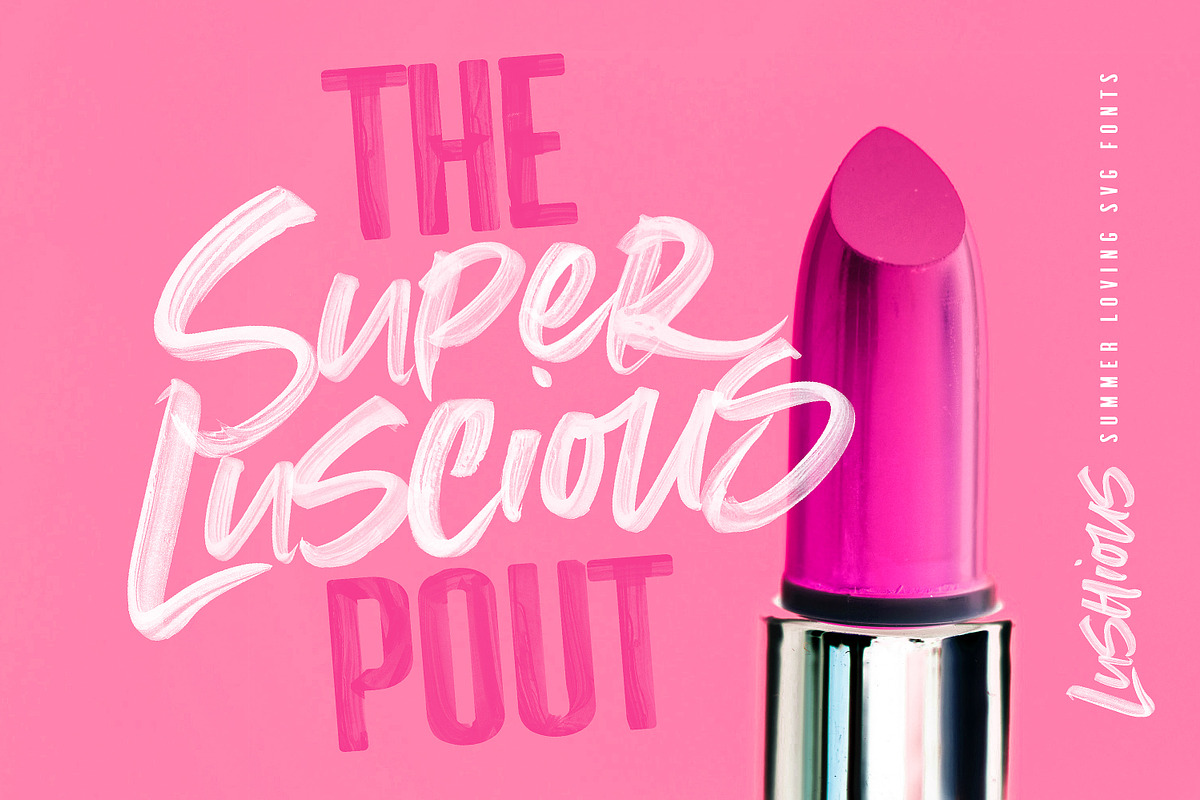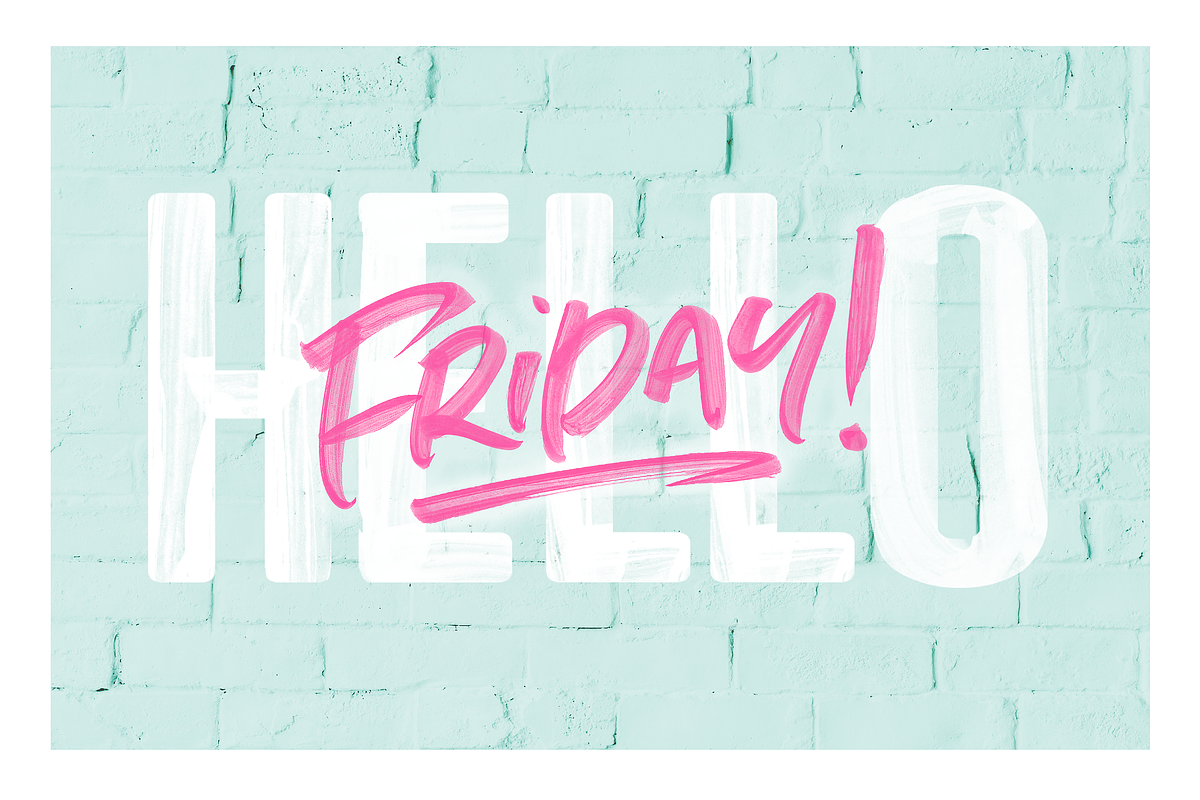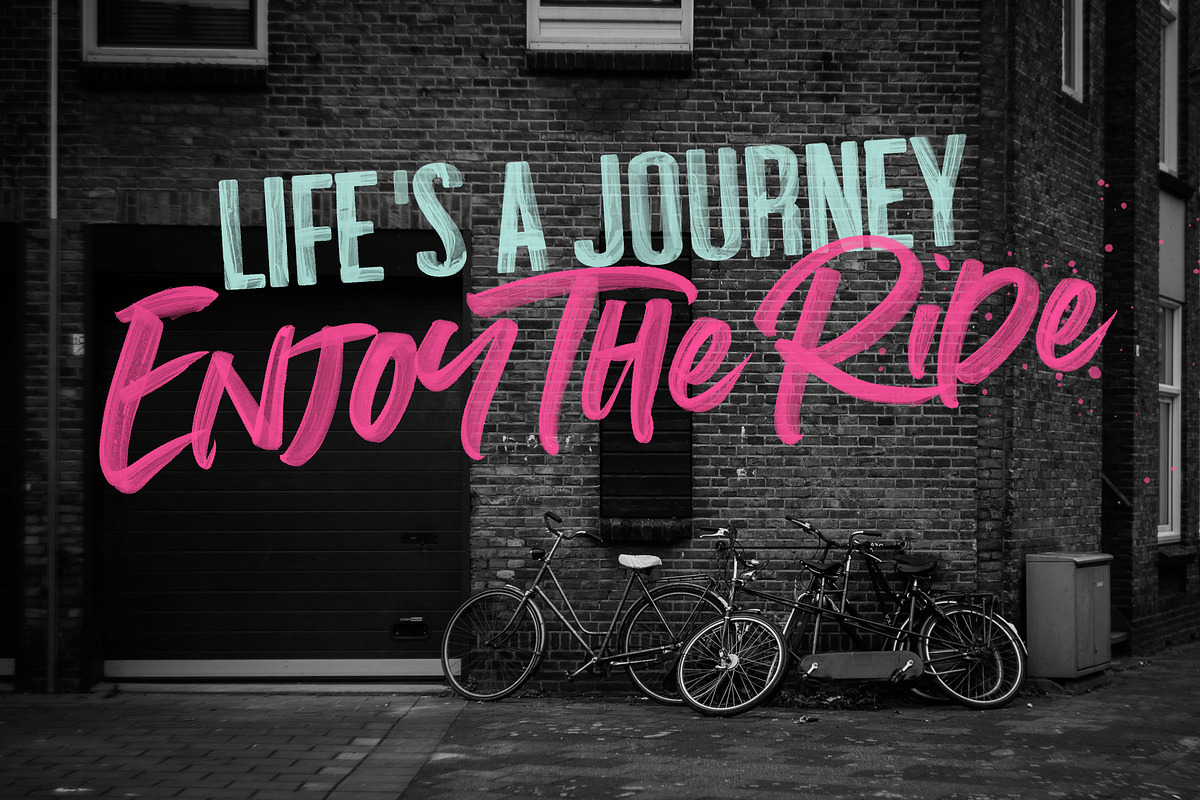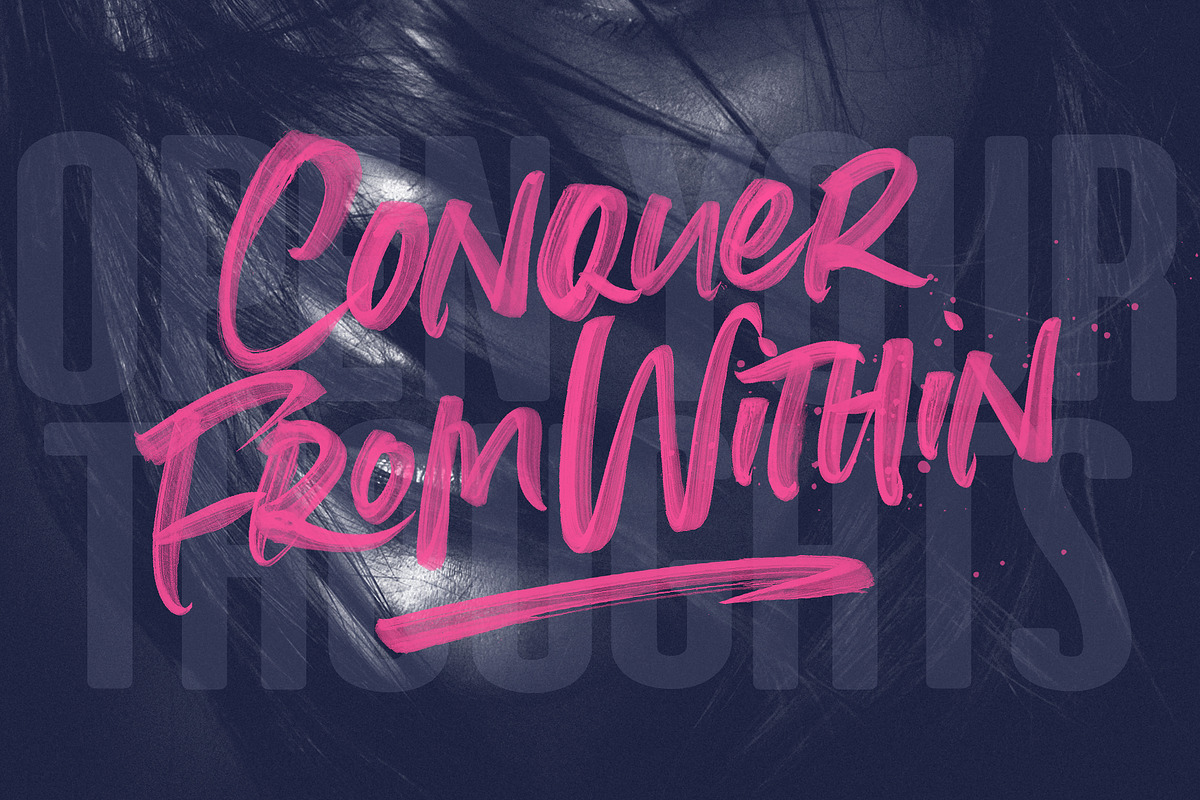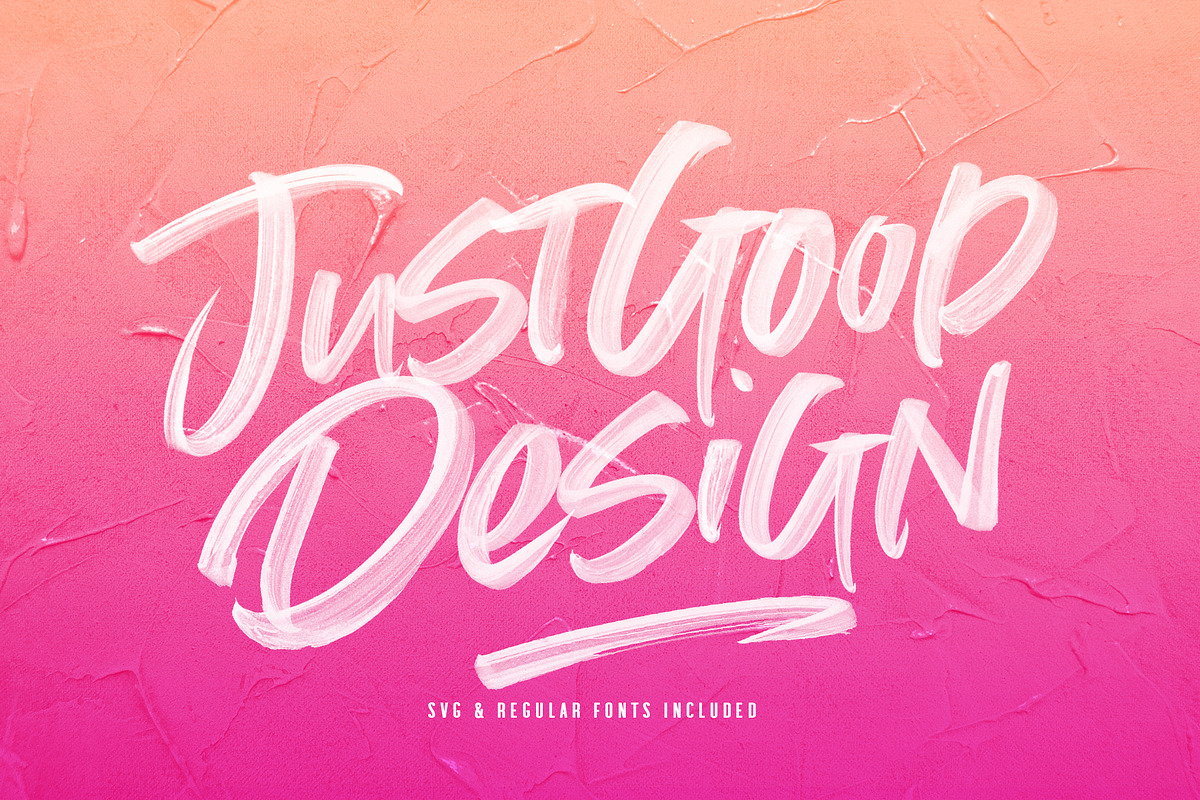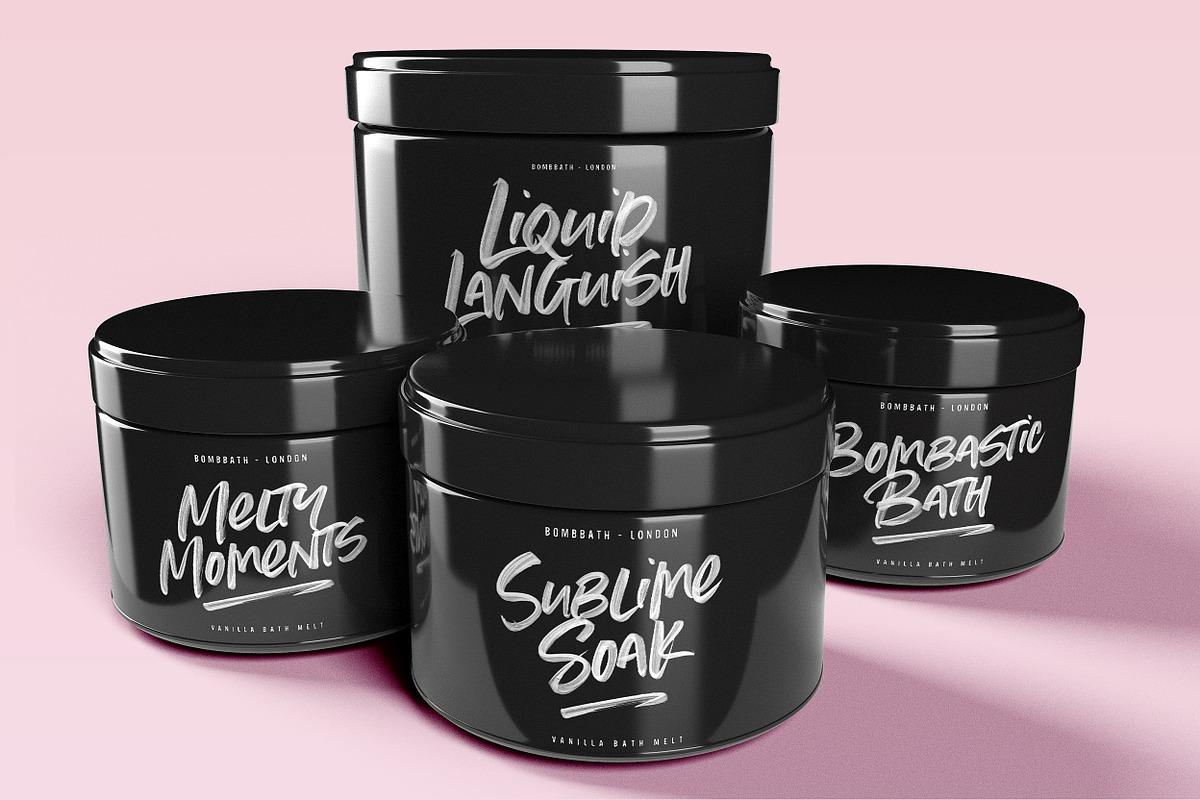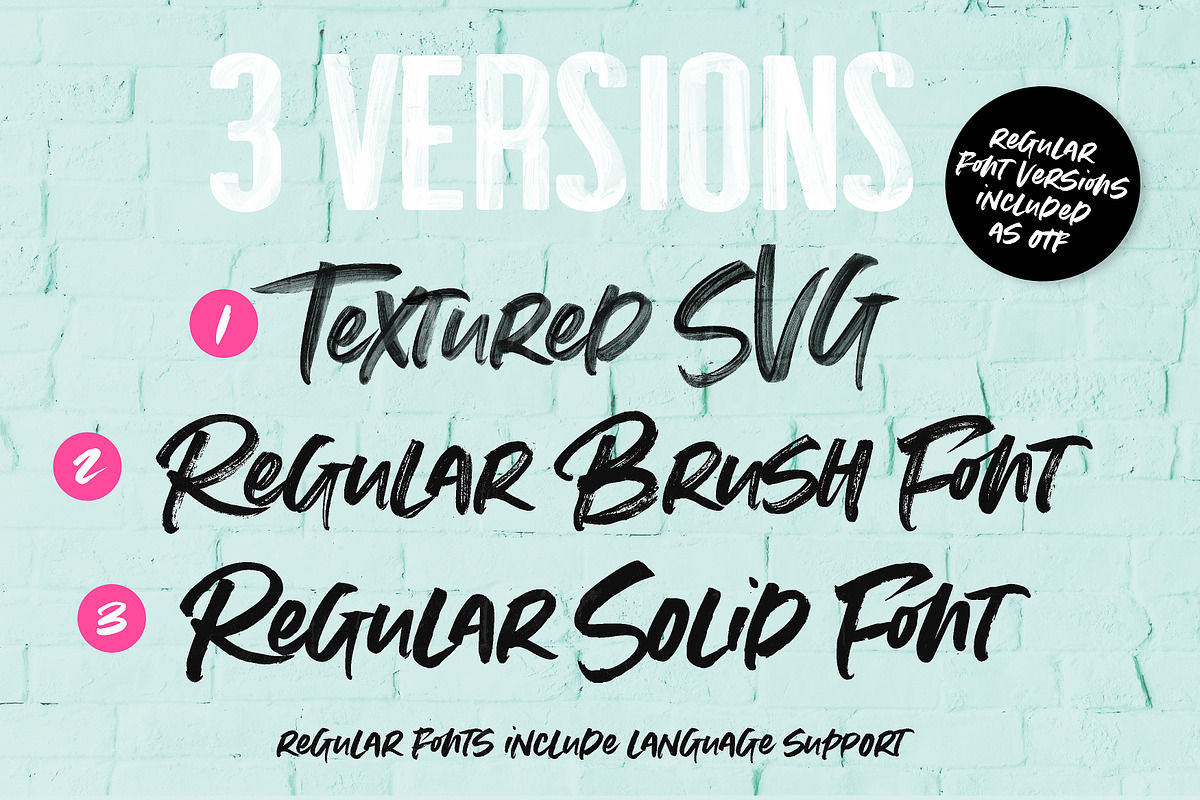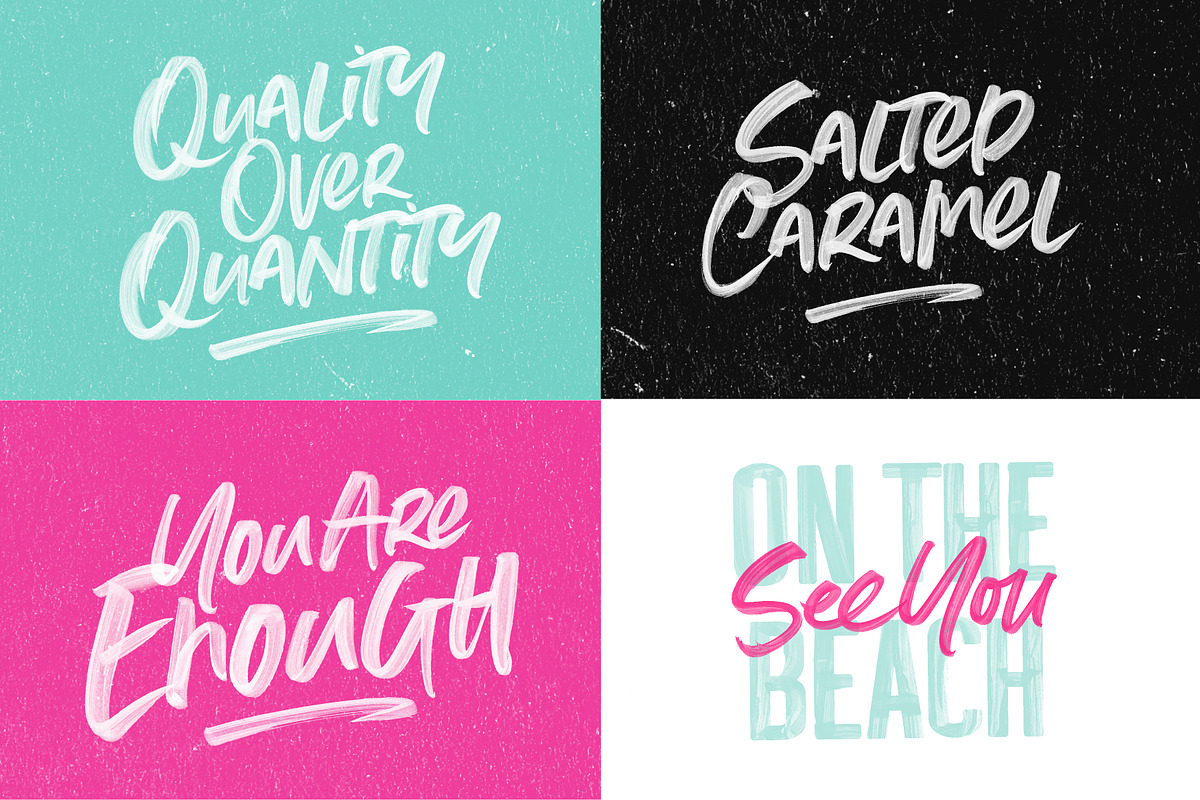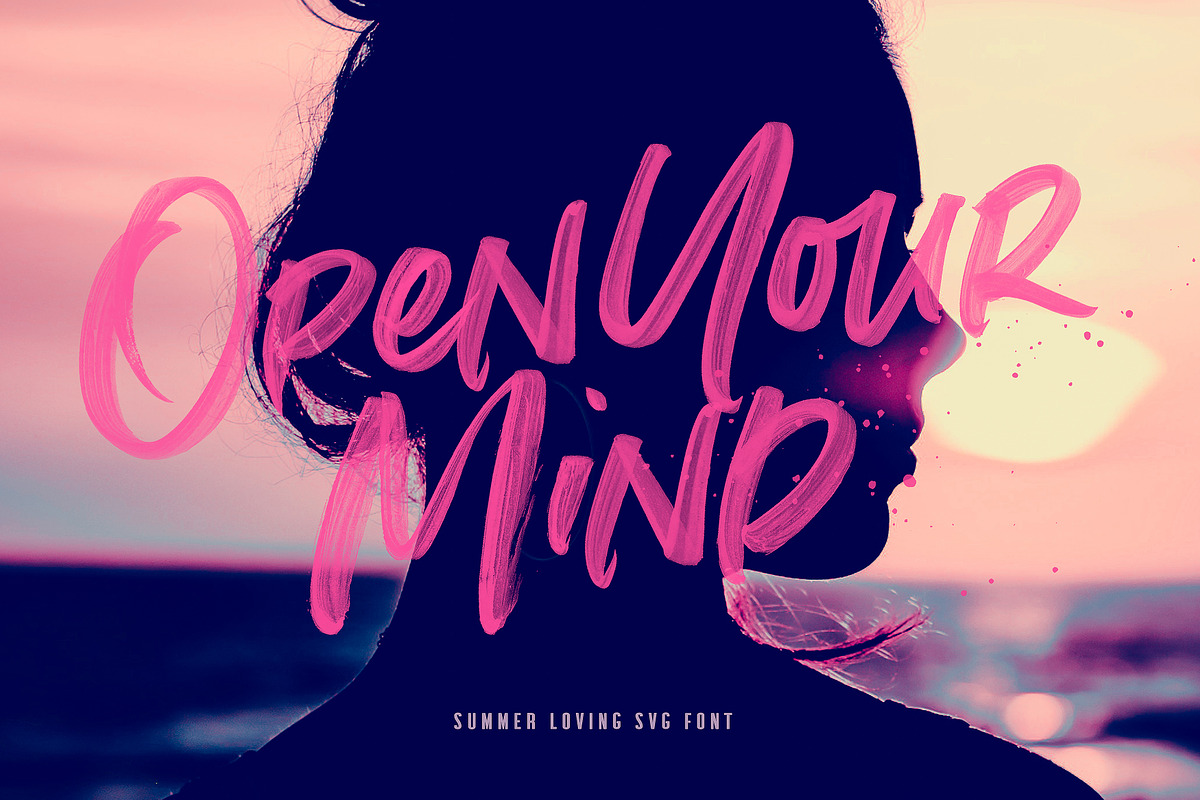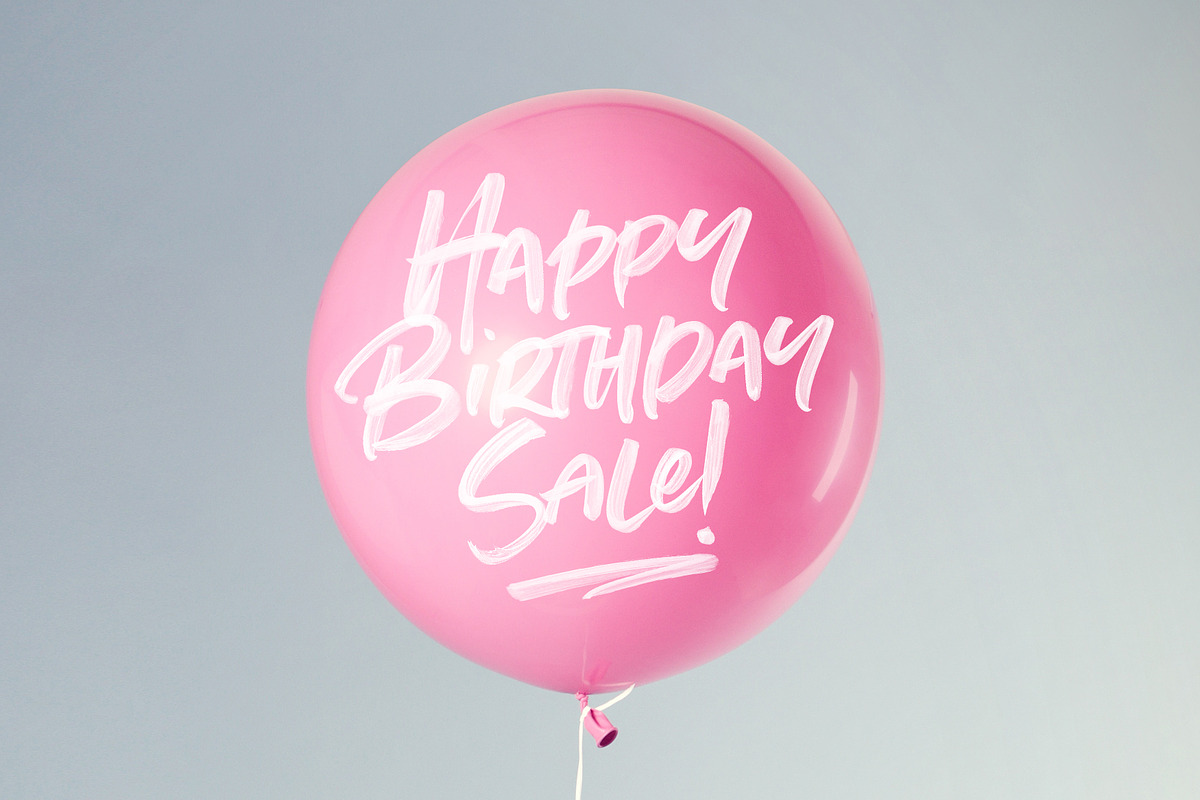
Summer Loving Font Collection
Throw on some shades and get summer ready with the new Summer Loving Font Collection!
Introducing the brand new set of ultra-textured SVG Fonts designed with high resolution paintbrush detail built right in - No need to spend hours creating your own hand-painted letters - just type these babies right onto your project.
New to SVG fonts is support for Opentype Ligatures and Alternate letters - which I've added in abundance for you in this one - to make your projects look truly authentic and realistic.
Love the style - but need a vector version? No problem! Regular Opentype font versions are also included for you.
1.) THE SUMMER LOVING SVG FONT which includes :
- LETTER ALTERNATES : It includes a full set of upper and lowercase alternate letters to make your designs look more natural and less like a font.
- LIGATURES - The Script comes with a set of natural looking ligatures for common letter combinations that are inserted automatically as you type.
- SWASHES - 4 Handy Swashes can by created simply by typing out bracket pairs with your opentype ligatures setting active : () {} []
2.) THE SUMMER LOVING SANS SVG FONT
- A smooth-edged All-Caps Sans-Serif SVG Font with built in paint stoke texture and transparency.
3.) THE SUMMER LOVING REGULAR SCRIPT FONT
- A Standard Font (.otf) of the Brush SVG Script font - maintaining a vector brush texture. Includes all alternates and ligatures included in the SVG Brush fonts.
4.) THE SUMMER LOVING SOLID BRUSH FONT
- A Standard Font of the Brush SVG Script font - maintianing a vector brush edge but with a solid fill. Includes all alterantes and ligatures included in the SVG Brush fonts.
5.) THE SUMMER LOVING SOLID SANS FONT
- A Standard Opentype Font Version of the All-Caps Sans SVG font with a solid fill.